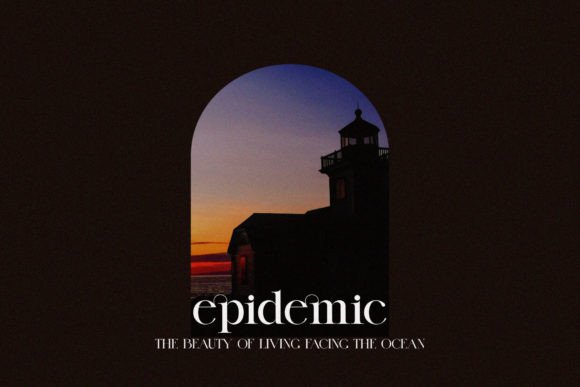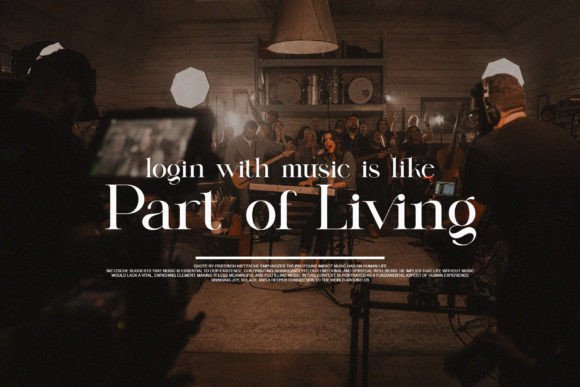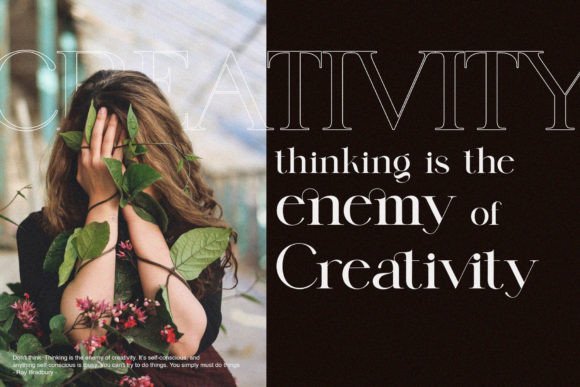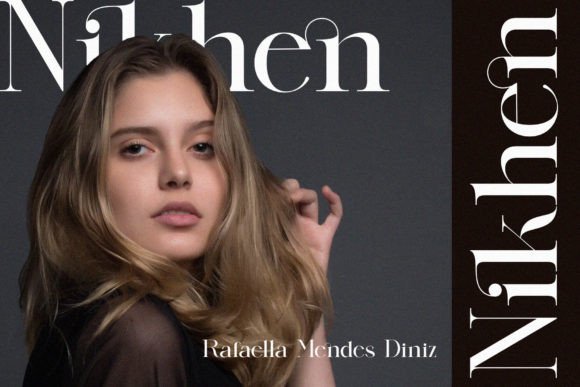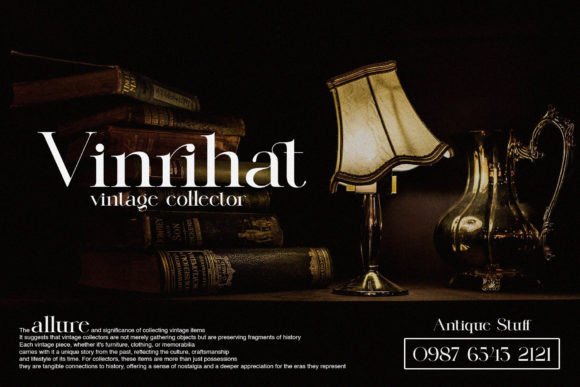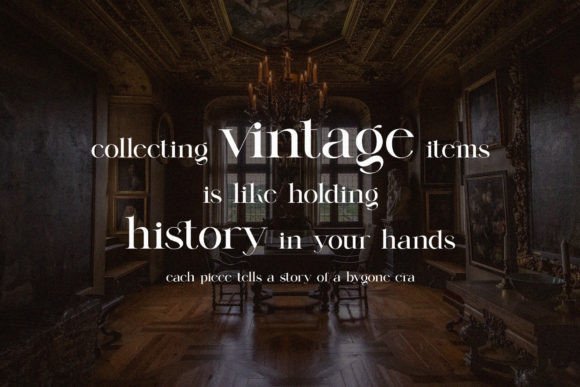
Introduction to Qilbrid Font
Have you ever stared at a blank canvas, waiting for inspiration to strike? For designers, this moment can be both exhilarating and daunting. It’s the spark that ignites a creative project, propelling you towards a world of endless possibilities. And, for those who crave a touch of elegance and sophistication, the Qilbrid Font is the perfect catalyst.
This modern ligature serif typeface is more than just a design resource – it’s a game-changer. With its sleek, refined aesthetic, Qilbrid Font is ideal for a wide range of applications, from brochures and videos to advertising branding and logos. Its versatility makes it a valuable asset for designers, allowing them to create high-quality designs with ease.
Key Features of Qilbrid Font
- High-quality, professional font perfect for creative projects and designs
- Unique and elegant design with a transparent background, ideal for overlaying on images or videos
- Perfect design resource for various creative projects, including graphic design, typography, and digital art
Honest Review: Qilbrid Font
As a designer, I’m always on the lookout for high-quality design resources to elevate my creative projects. The Qilbrid Font is one such resource that caught my attention recently. Here’s my honest review of this font.
What works well: ✨ The Qilbrid Font has a unique, modern design aesthetic that makes it perfect for creative projects that require a touch of sophistication. I particularly love its versatility – it can be used for both display and body text, making it an excellent choice for designers who want a single font to cover all their bases. The font also comes with a transparent background, which is a bonus for designers who need to work with different backgrounds.
Overall, I’d say the Qilbrid Font is a great design resource for designers who are looking for a unique, modern font for their creative projects. While it has some limitations, its high-quality design and versatility make it a valuable addition to any designer’s toolkit.
- Unique, modern design aesthetic
The Qilbrid Font is suitable for various design projects, including logos, business cards, social media graphics, and presentations. Its high-quality design and transparent background feature make it an ideal choice for designers and creatives.
Is the Qilbrid Font a high-quality design resource?
Yes, the Qilbrid Font is a high-quality design resource that is carefully crafted to provide a unique and stylish look for your creative projects. With its clean lines and modern design, the Qilbrid Font is perfect for a wide range of design applications, from logos to brochures.